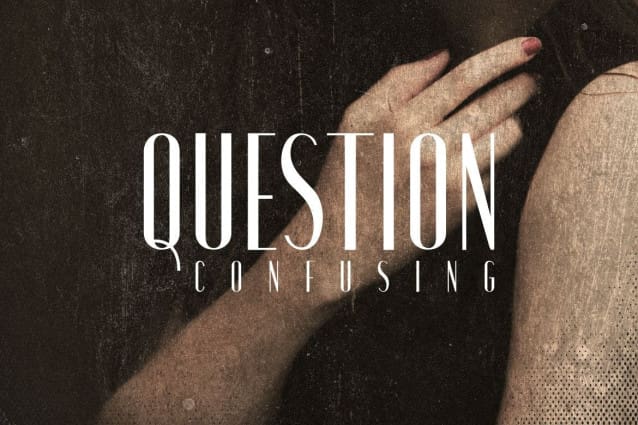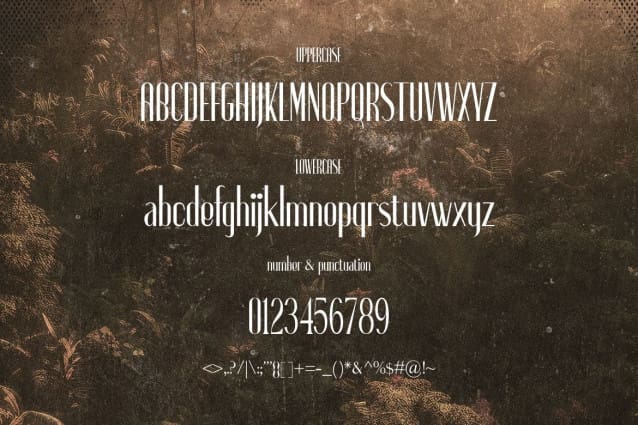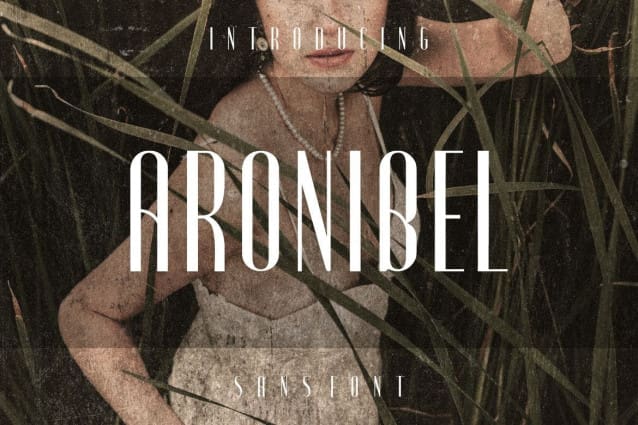
Aronibel Font
Aronibel Font, an elegant, simple and modern sans serif font. The feeling is elegant and beautiful. This font brings you a beautiful and modern atmosphere. suitable for posters, book covers, cards, merchandise, etc.